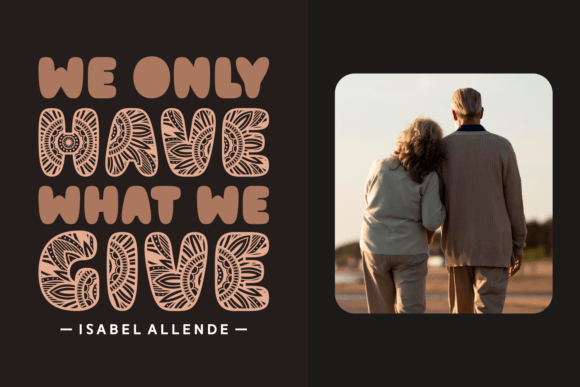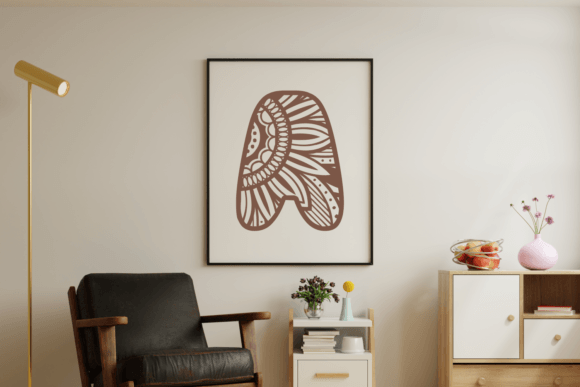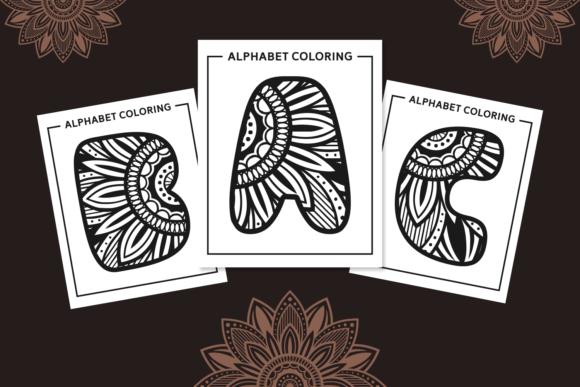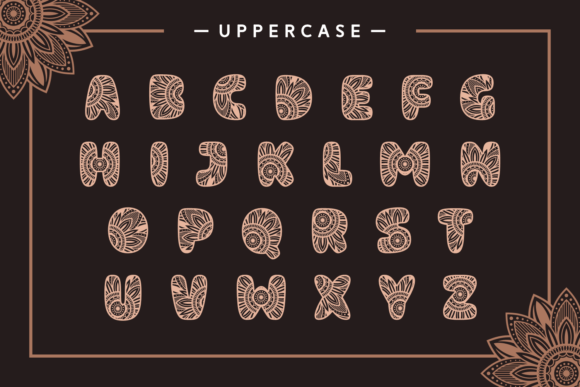
Bigo Mandala Font: Elevate Your Designs with Intricate Elegance
In the world of typography, fonts play a crucial role in conveying the tone and personality of a design. For designers and crafters looking to add a touch of sophistication and elegance to their creations, the Bigo Mandala Font is an excellent choice. This stylish and intricate decorative font is designed to elevate any project, regardless of the topic or theme.
What is Bigo Mandala Font?
Bigo Mandala Font is a decorative font that boasts intricate details and a unique style. Its elegant and sophisticated design makes it perfect for a wide range of applications, from branding and advertising to packaging and digital media. The font’s intricate patterns and swirling lines evoke a sense of luxury and refinement, making it an excellent choice for designers looking to create high-end designs.
Key Features of Bigo Mandala Font
• Intricate Design: The Bigo Mandala Font features intricate patterns and swirling lines that add a touch of elegance to any design.
• Versatile: This font is suitable for a wide range of applications, including branding, advertising, packaging, and digital media.
• High-Quality: The font is designed with high-quality craftsmanship, ensuring that it looks great in any design.
Benefits of Using Bigo Mandala Font
• Adds Elegance: The Bigo Mandala Font adds a touch of elegance and sophistication to any design, making it perfect for high-end brands and luxury products.
• Unique Style: The font’s unique style and intricate design make it stand out from other fonts, ensuring that your designs get noticed.
• Versatile: The font’s versatility makes it suitable for a wide range of applications, from print to digital media.
In conclusion, the Bigo Mandala Font is a stylish and intricate decorative font that can elevate any design. Its elegant and sophisticated design makes it perfect for a wide range of applications, from branding and advertising to packaging and digital media. With its versatility, ease of use, and high-quality craftsmanship, this font is a must-have for designers and crafters looking to add a touch of luxury and refinement to their creations.